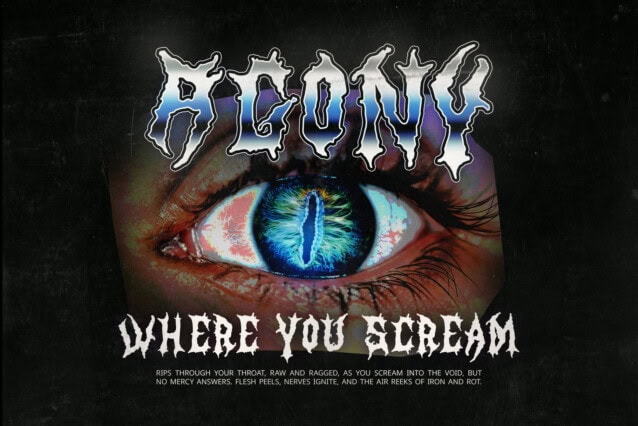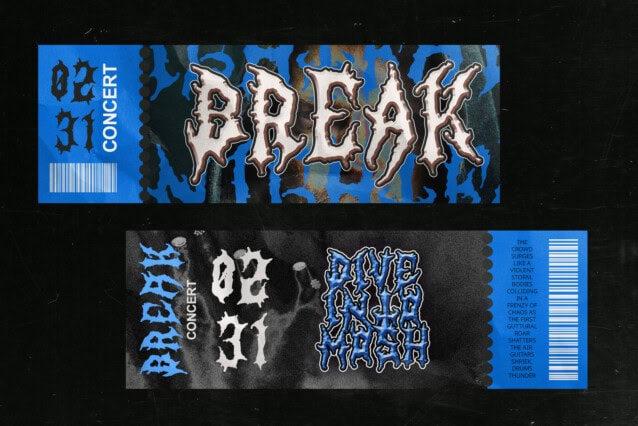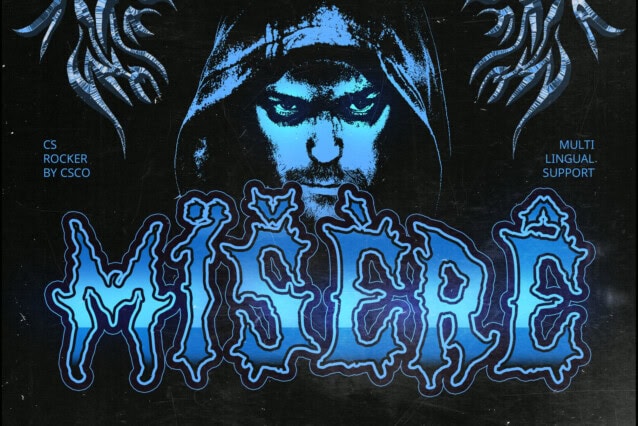
CS Rocker Font
CS Rocker Font is a Black Metal display font designed to embody the raw intensity of extreme music. Its jagged, sharp-edged letterforms, combined with rough textures and thorn-like extensions, create a chaotic yet captivating aesthetic. This font is built to stand out with an unapologetically brutal and rebellious presence.